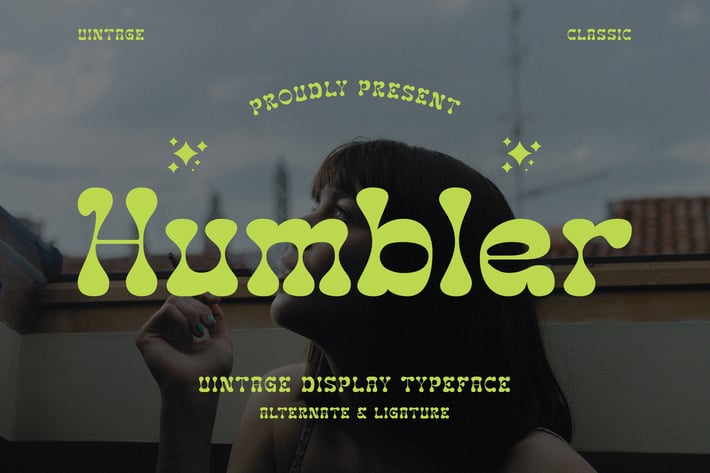
Humbler - Uintage Font
Humbler - Uintage Font contains a lowercase, uppercase, symbol, and also supports multi-language. There’s a lot of ligature in this font. Humbler - Uintage Font also comes with ligatures, stylistic alternates, and many more.
this font is suitable for fashion, branding, catalog, and other designs that you want.